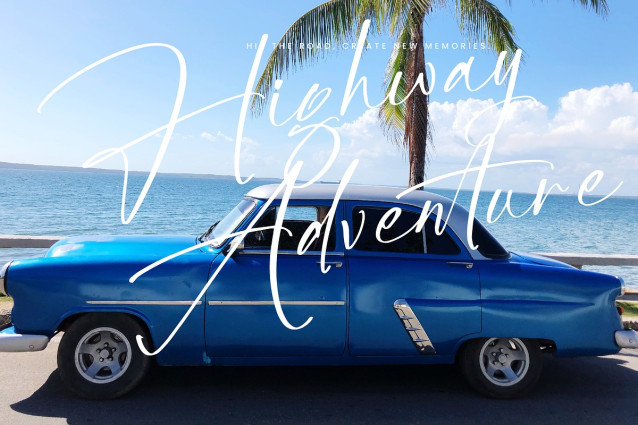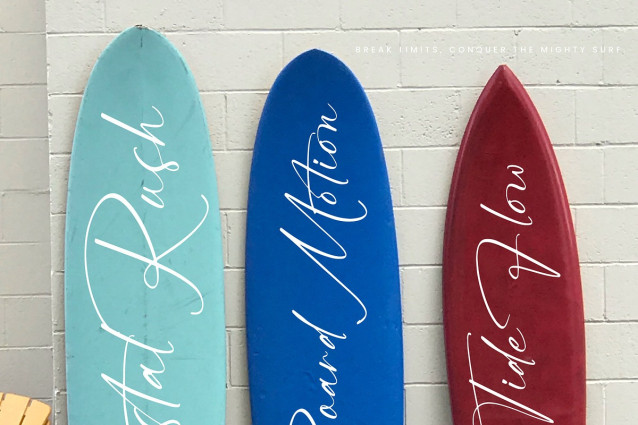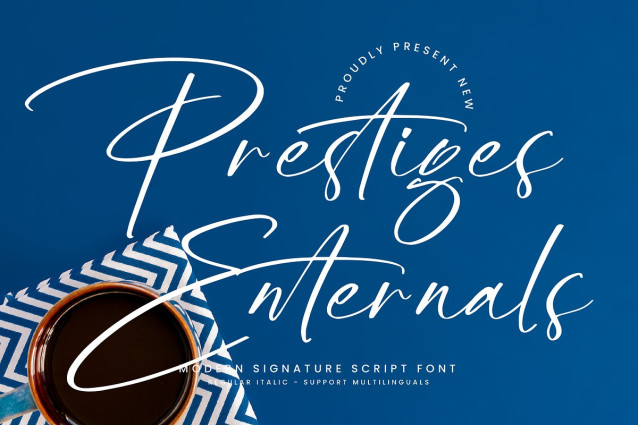
Prestiges Enternals Font – Modern Signature Script Font, from Integritype Studio, perfect for any project like: logos, branding projects, homewares designs, product packaging, mugs, quotes, posters, shopping bags, t-shirts, covers books, business cards, invitation cards, greeting cards, labels, photography, watermarks, special events and all your other luxury projects that require a premium taste.